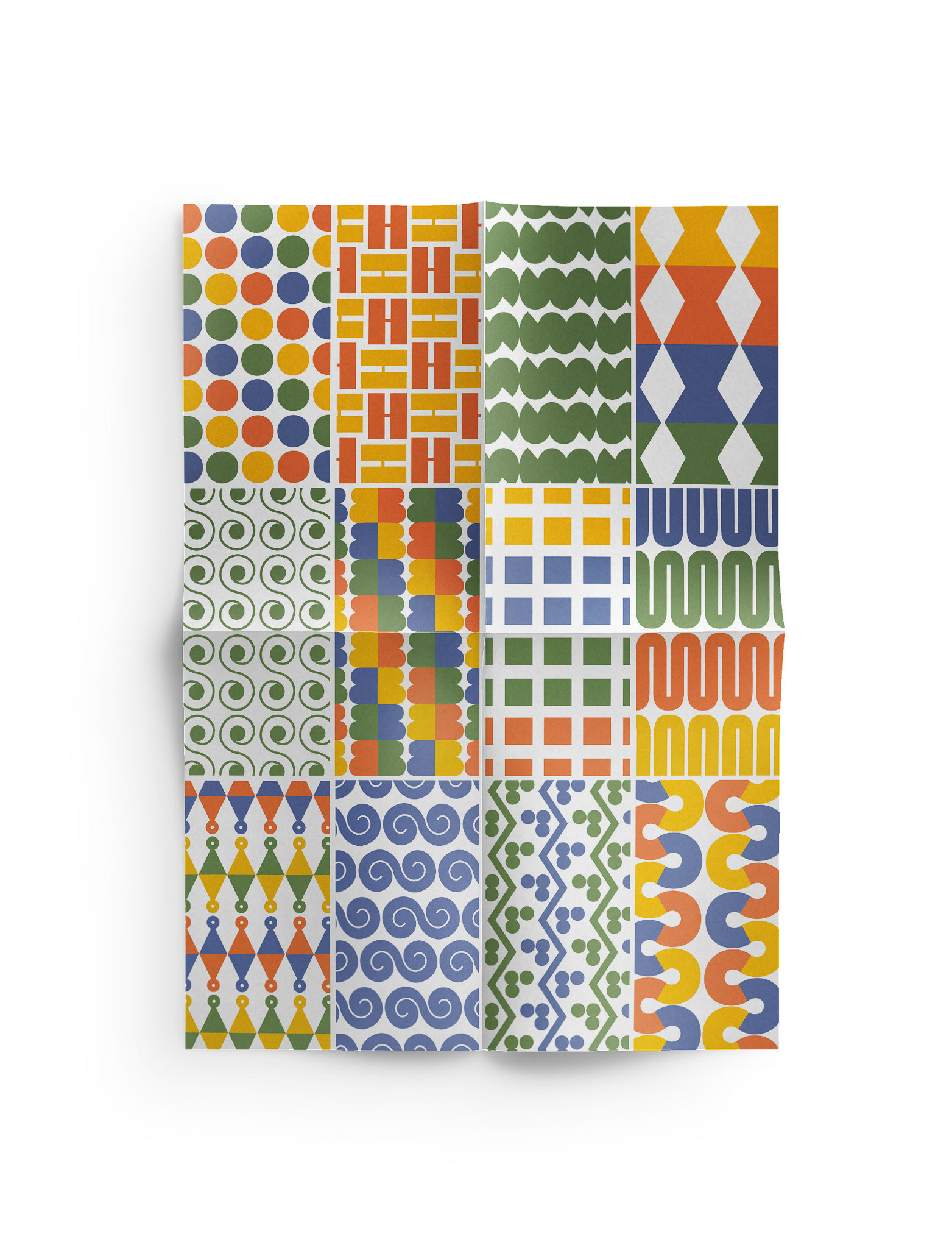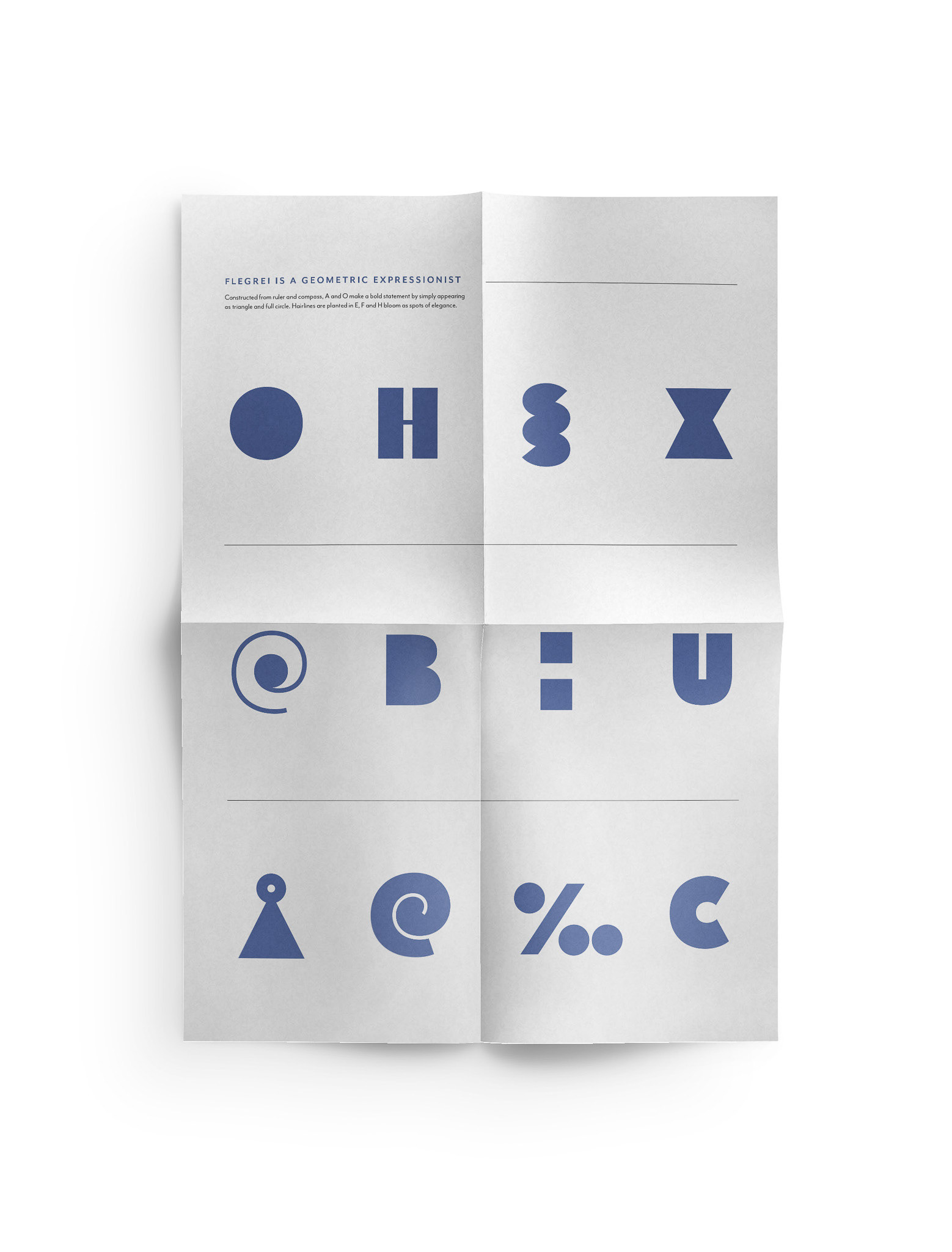
Use the given 19 typefaces plus one chosen one to design an editorial book that demonstrates good use of information hierarchy, pacing, sequencing and visual systems.
Flegrei forms the explorative typeface within this editorial book. Drawn to its geometric shapes that originated from wooden, letterpress style as well as it’s unique glyphs. Through the style of Flegrei, this publication explores Twenty Typefaces that Changed the World.
Typeface specimen